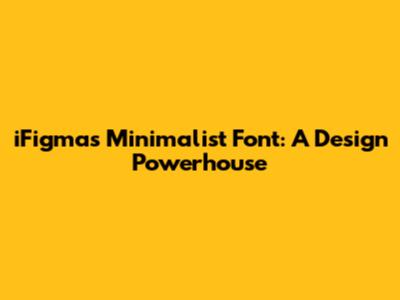
Hey guys! Let's dive into the awesome world of iFigma's minimalist font. If you're into design, whether you're a seasoned pro or just starting out, you've probably heard of Figma. It's the go-to tool for a ton of designers. And within Figma, there's a whole universe of fonts that can totally transform your projects. Today, we're zooming in on a specific font: the minimalist font. It's clean, it's sleek, and it's super effective for a wide range of design applications. This article is all about helping you understand the beauty and the power of iFigma's minimalist font.
So, what exactly is a minimalist font? Well, at its core, it's a typeface that strips away unnecessary flourishes and focuses on pure, unadulterated readability. Think of it like a perfectly tailored suit: it's elegant, it's functional, and it gets the job done without being flashy. These fonts usually feature simple geometric shapes, consistent line weights, and a general sense of visual harmony. They're designed to be unobtrusive, letting the content speak for itself. This makes them ideal for various design uses, from websites and apps to presentations and print materials. You can't go wrong with using a minimalist font in your design. They're like the unsung heroes of the design world.
Why should you care about this font, you ask? Because a well-chosen font can make or break your design. It's all about how your content is perceived. This is what you should always consider. A minimalist font helps you create a clean and professional look, which is essential for building trust with your audience. Think about it: a cluttered font can make your design look amateurish and hard to read, instantly turning people off. But a minimalist font? It conveys clarity, precision, and a modern sensibility. This is because minimalist fonts enhance readability, ensuring your message gets across. It's a key factor for grabbing people's attention, and it will keep them engaged with your content. It also helps to create a sense of sophistication and professionalism. Whether you're designing a website, a mobile app, or a marketing presentation, the right font can elevate your brand and make a lasting impression on your audience. With that, a minimalist font can be a powerful tool in your design arsenal.
The Characteristics of a Great Minimalist Font
Now, let's look at the key characteristics that make a minimalist font stand out. It's not just about being plain; it's about being purposefully simple. One of the most important things is readability. A good minimalist font is super easy to read, even at smaller sizes. This is crucial for both digital and print designs, where you want your audience to quickly understand your message. Look for fonts with clear letterforms, distinct shapes, and ample spacing between characters. This will help readers. Another key characteristic is the consistency of the font. Minimalist fonts often have consistent line weights and geometric shapes, which create a visual harmony. This consistency helps to give the design a clean and professional look. It's all about ensuring that every character works in unison to maintain a unified aesthetic.
Versatility is also important, as a great minimalist font should be versatile enough to work in various contexts. It should look good in both headlines and body text, and it should be adaptable to different sizes and layouts. It's all about using the font in the right way. This way, you will be able to get the best out of it. Consider how a font will appear in various applications. Finally, the aesthetic of the font is also important. Minimalist fonts often have a modern and clean aesthetic, which can help to create a sense of sophistication and professionalism. Think about the overall feel that you want to convey. Make sure it aligns with your brand. Choose a font that reflects your brand's personality, and don't be afraid to experiment with different fonts until you find the perfect match. The best minimalist fonts have a timeless appeal, avoiding any trendy elements that could quickly become outdated. This makes them a great option for design projects that will be used for a long time. With that, the perfect balance of form and function of the minimalist font will help make your design shine.
Where Can You Find iFigma Minimalist Fonts?
Alright, so you're sold on the idea of using a minimalist font, but where do you find the best ones, especially for Figma? You can find a wide variety of minimalist fonts to add to your projects. Figma itself offers a selection of default fonts, some of which lean towards a minimalist style. But the real treasure trove is Google Fonts. Google Fonts is a free and open-source library that has a massive collection of fonts, including tons of fantastic minimalist options. These are all available to use in Figma. Fonts like Roboto, Open Sans, Montserrat, and Lato are all excellent choices. They're all super readable, versatile, and work well in various design contexts. These fonts will make your project pop out. Another great option is to explore paid font foundries, which offer a more curated selection of high-quality fonts. These are the fonts that you need for professional projects. Font foundries like MyFonts and Adobe Fonts provide a wide range of premium minimalist fonts. This is for more complex and unique designs. This can make a big difference in the overall look and feel of your designs.
When choosing a font, consider the specific needs of your project. If you're designing a website or a mobile app, you'll want to choose a font that is easy to read on screens. If you're designing a print project, you may have more options. You can experiment with different weights and styles to find the perfect match. Ultimately, the best way to find the perfect minimalist font is to experiment and see what works best for your specific needs. Just take your time, and you'll find the perfect match that suits your needs. Figma's community is also a great place to find new fonts and inspiration. You can see how other designers use them in their projects.
How to Effectively Use Minimalist Fonts in Your Designs
Now, let's talk about the practical side of using minimalist fonts. It's not just about picking a font; it's about using it effectively to enhance your designs. First, consider the context. This means thinking about where your design will be used, who your target audience is, and what message you want to convey. For example, if you're designing a website for a tech company, you might want to choose a sleek and modern minimalist font. But if you're designing a children's book, you might opt for a more playful and friendly font.
Pairing fonts is another important aspect. Pairing a minimalist font with another font can add visual interest. Try pairing a minimalist font with a contrasting style or weight. Avoid using too many different fonts in your design, as this can make it look cluttered and confusing. Choosing complementary styles helps create a sense of harmony. Remember, less is often more. Keep the number of fonts to a minimum to maintain a clean and professional look. Hierarchy is also a key factor. Use different font sizes, weights, and styles to create a clear visual hierarchy. This will help readers understand the most important information. This also creates a sense of order and structure. Use bold or larger fonts for headlines and subheadings, and a smaller, lighter font for body text. This will help to guide the reader's eye and make your design easier to navigate. Spacing and layout are also important. Ensure adequate spacing between characters, lines, and elements. This will improve readability and make your design more visually appealing. Avoid overcrowding your design. Make sure there is enough white space around text and elements to create a sense of balance. Also, create a design that is visually appealing, and ensures that it is super easy to read. With these tips, you will be able to make the most of your minimalist fonts.
The Advantages of Using Minimalist Fonts
Why should you switch to a minimalist font? Let's break down the advantages. One of the biggest pros is improved readability. Minimalist fonts are designed with readability in mind. This is great for making it easy for the user. They tend to have clean lines, open shapes, and ample spacing, which make them super easy to read at different sizes and on different devices. This is a game-changer for digital design, where users may be viewing your content on a variety of screens. Versatility is another big plus. Minimalist fonts are versatile and adaptable to various design contexts. They work well in both headlines and body text and can be easily adapted to different sizes and layouts. This makes them ideal for various design projects, from websites and apps to presentations and print materials. You can't go wrong with these fonts.